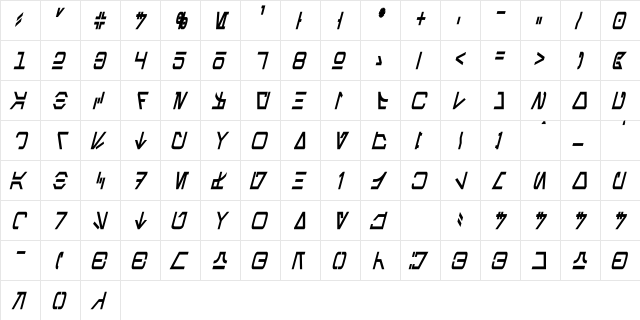
Aurebesh Condensed Bold
| Designer | Neale Davidson |
Design Context for Aurebesh Condensed Typeface
Aurebesh Condensed is a composed and adaptable typeface that performs quietly and consistently across a wide range of design contexts. Its bold stroke weight gives it real presence on the page. The condensed width makes it efficient for tight spaces without sacrificing legibility.